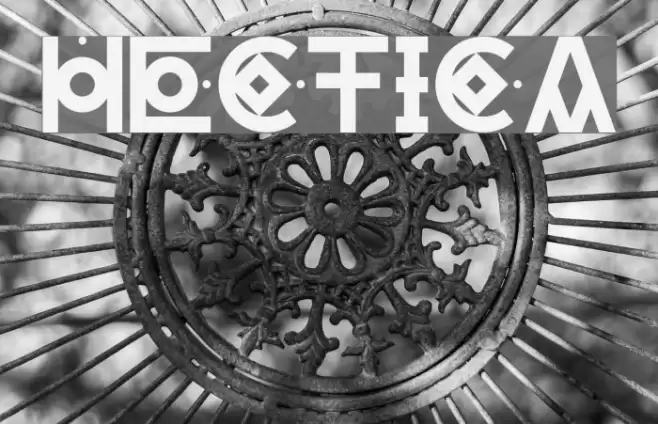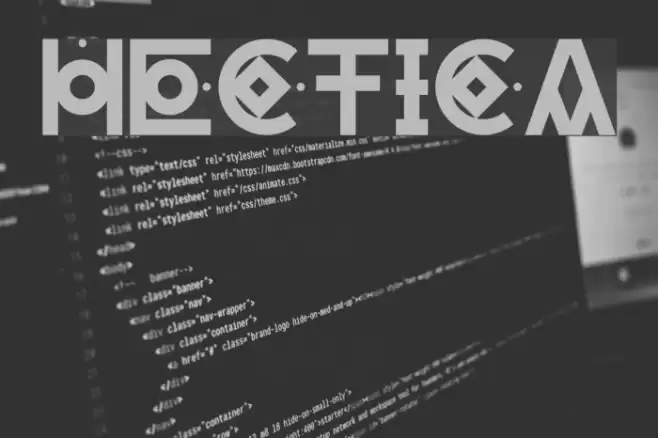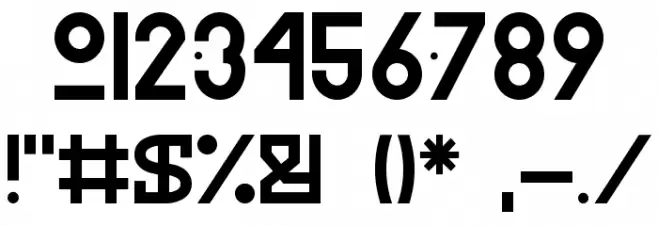
HECTICA Font
HECTICA Description
This font features a bold and geometric design with a futuristic aesthetic. Each character is crafted with unique shapes, incorporating circles, lines, and angular elements that create a distinct and modern look. The uppercase letters are particularly striking, with some characters featuring cutouts and overlapping elements that add depth and complexity. The numerals and special characters maintain the same geometric style, ensuring consistency across all glyphs. This font's boldness and unique design make it stand out, ideal for projects that require a modern and eye-catching typeface.
A bold, geometric font with a futuristic and modern aesthetic from Decorative fonts.
- Proposed Projects: Ideal for branding, posters, album covers, and any project needing a modern, futuristic touch.
- Overall Style: Futuristic, Modern